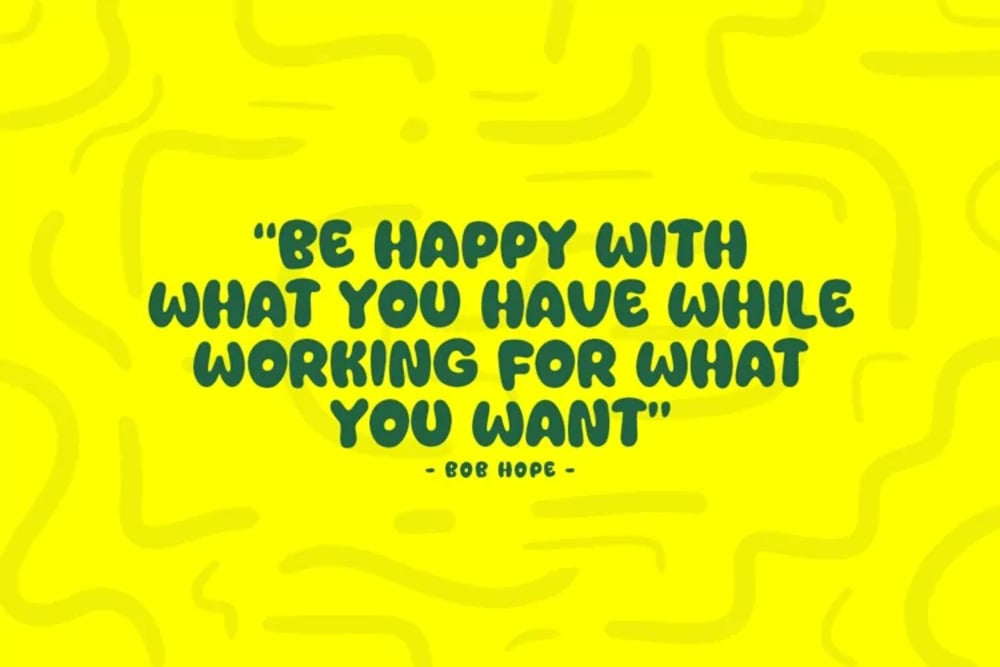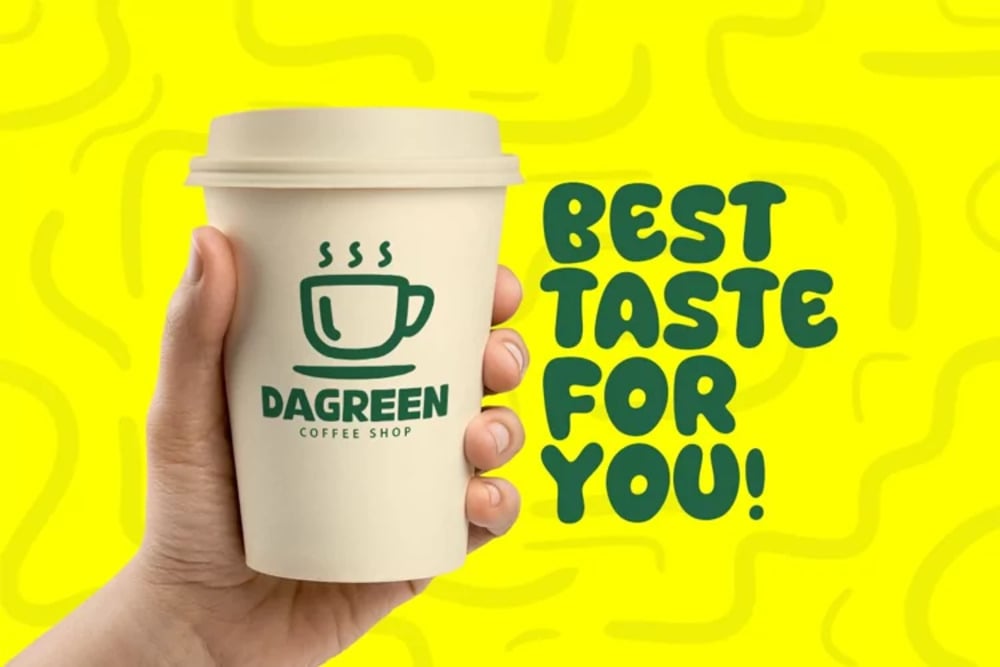
Green Yellow Font
Green Yellow is a vibrant and playful display font bursting with youthful energy. Its rounded, slightly chunky letterforms evoke a sense of fun and informality. Perfect for children’s designs, playful branding, summer-themed projects, and anything that needs a dose of bright, optimistic charm. Green Yellow adds a cheerful and energetic touch, like a burst of sunshine.